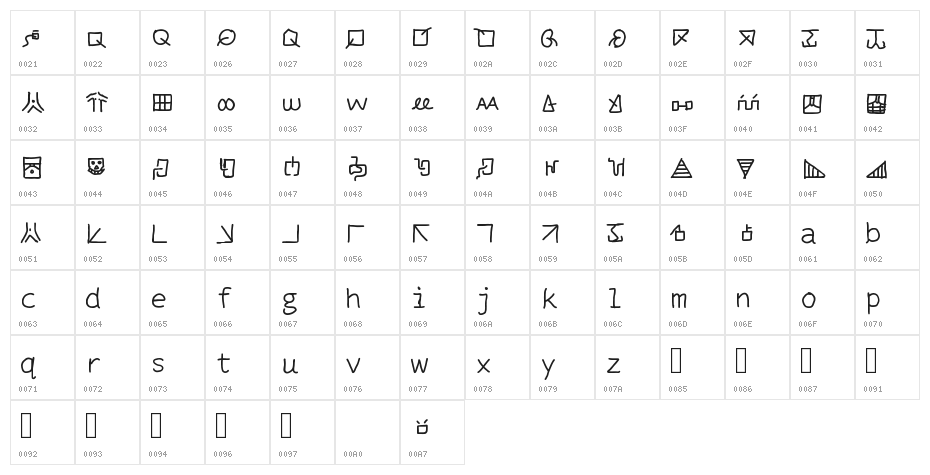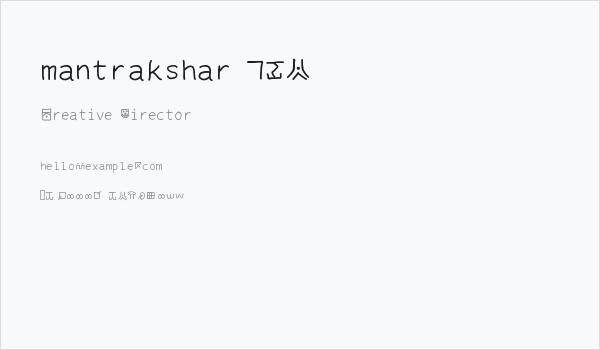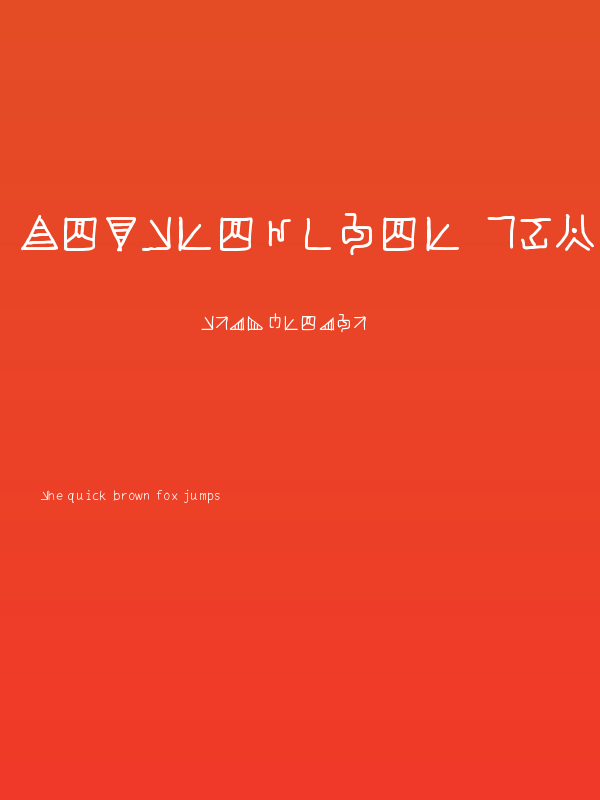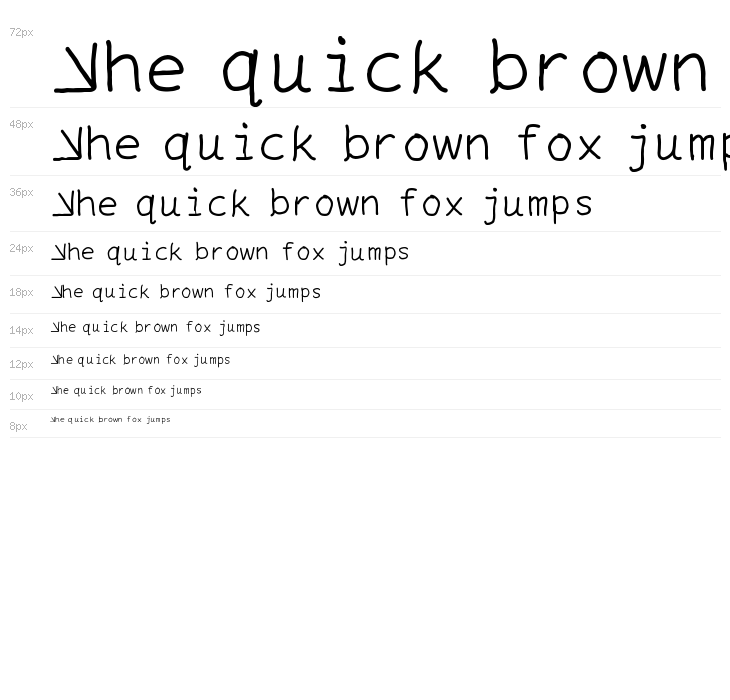
mantrakshar X02 Font
mantrakshar X02 Description
This font presents a unique and artistic style, characterized by its hand-drawn, irregular shapes that give it a playful and whimsical appearance. The uppercase letters are abstract and geometric, resembling ancient symbols or hieroglyphs, while the lowercase letters maintain a more traditional, yet still quirky, handwritten style. The numbers and special characters continue this theme, offering a mix of imaginative and unconventional designs. The overall effect is both creative and informal, making it suitable for projects that require a touch of individuality and artistic flair.
| Overall Style | Artistic, Whimsical |
| Use Case | Logos, Posters, Creative Projects |
| Proposed Projects | Ideal for creative projects such as children's books, artistic posters, or unique branding materials. |